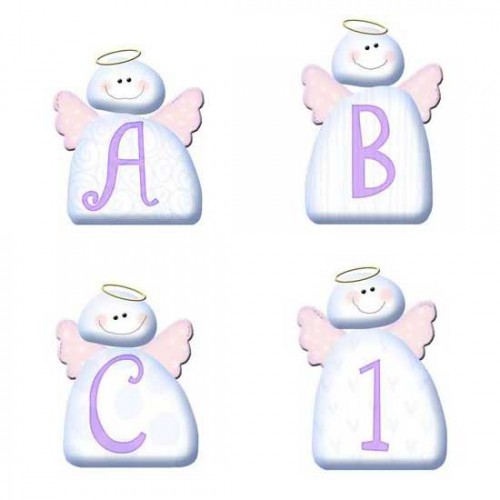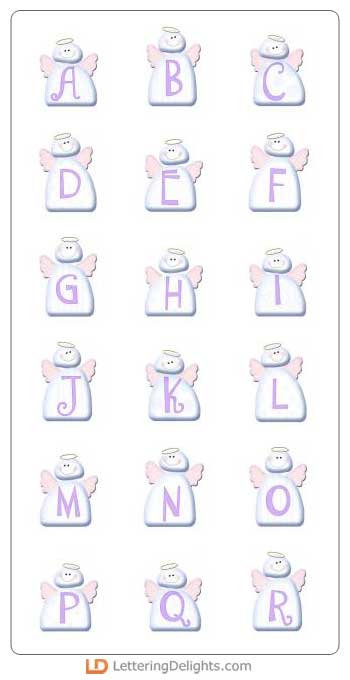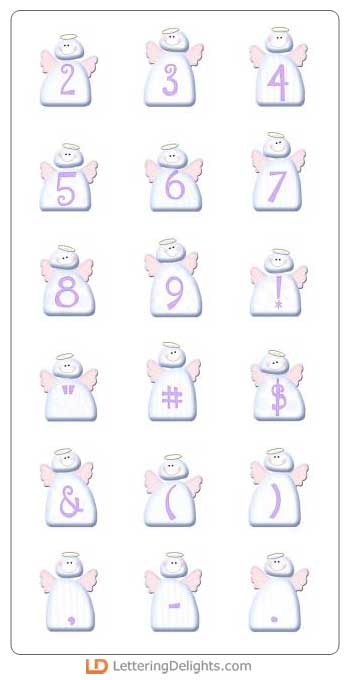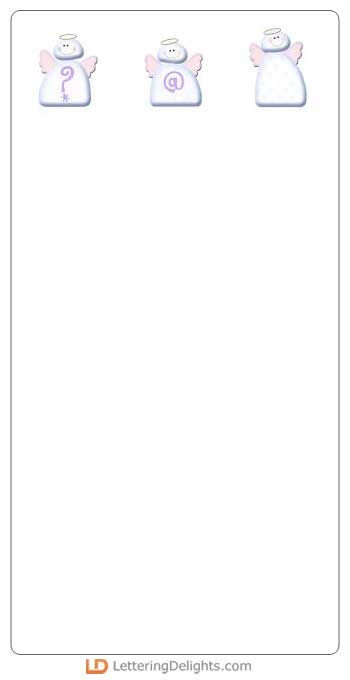
Winter time angels have decended from heaven onto this alphabet of purple letters. Along with the matching Journaling Delights set, use them to create cold weather scrapbook albums, pages, or brag books. Personalize labels, door hangers, greeting cards or gift containers. You can even make up a Christmas Eve bingo game using this creative alphabet.